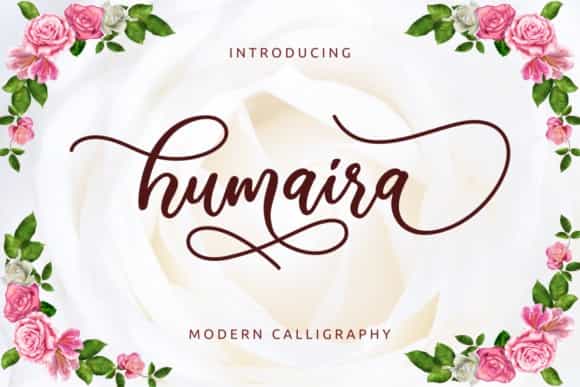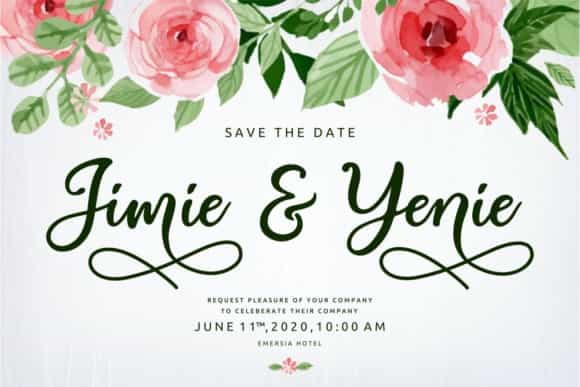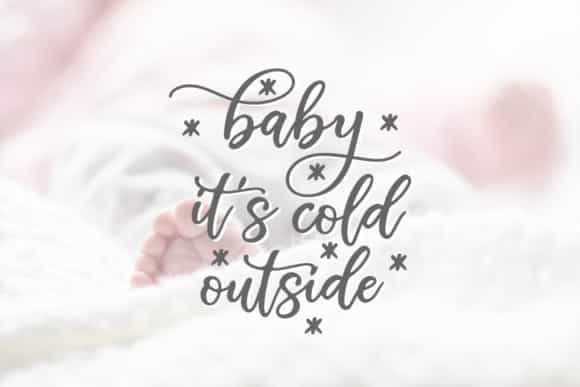
Discover Humaira Modern Calligraphy Font, part of the Calligraphy collection—a versatile and unique font perfect for adding a personal touch to your projects. Download it for free and enjoy crafting designs with style, from invitations to social media posts. This font is available exclusively for personal use, giving you the freedom to create without limits. Unlock your creativity with Humaira Modern Calligraphy Font today!
Humaira Font includes a complete set of Uppercase, Lowercase numeral and punctuation, as well as multilingual support. Humaira is a handmade calligraphy font that was made with the love in every character. This font is ideal for logos, branding, business cards, watermarks, posters and even more.